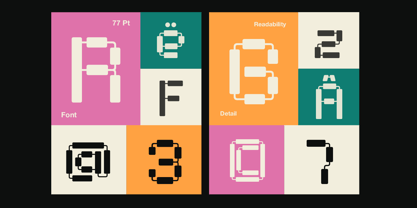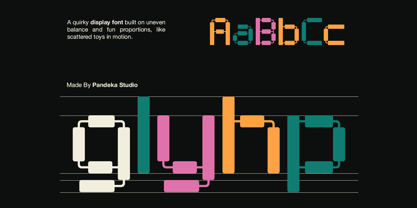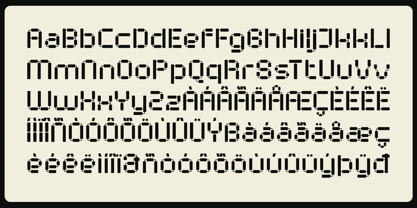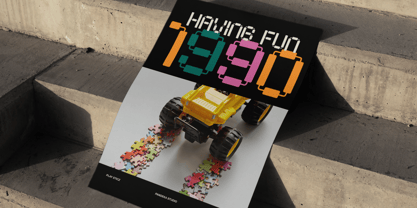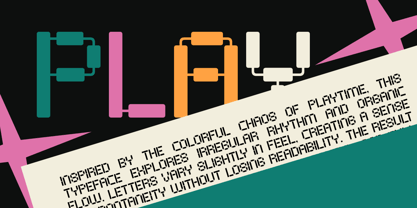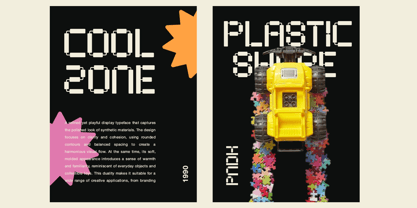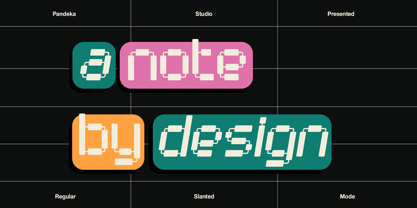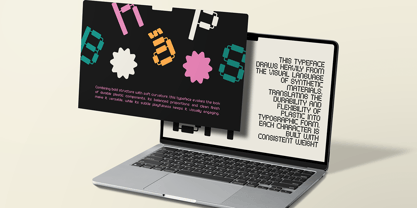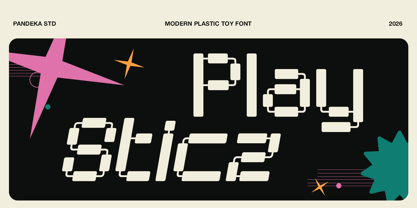
Play Sticz
by Pandeka Studio
Play Sticz is a modern display font inspired by the playful structure of plastic toy components. Built from modular shapes and connected forms, it brings a fun, experimental, and slightly mechanical feel, like pieces of toys assembled into expressive letterforms. The quirky construction and uneven rhythm create a lively and eye-catching visual style.
This font comes with 2 styles: Regular & Slanted, and includes uppercase, lowercase, numbers, punctuation, and multilingual support. Perfect for toy branding, kids products, playful packaging, creative posters, game design, fun logos, and experimental typography projects.
• 2 Style: Regular and Slanted
• Full Character Set: Uppercase, lowercase, numbers, symbols, and punctuation